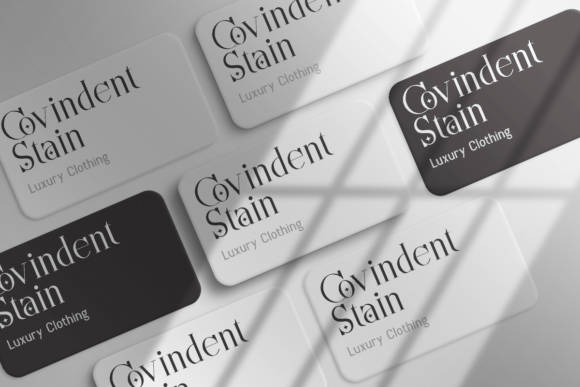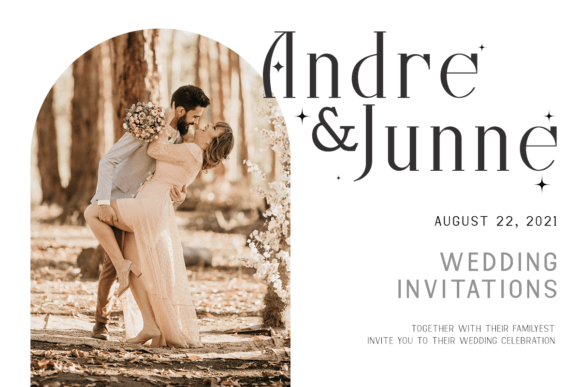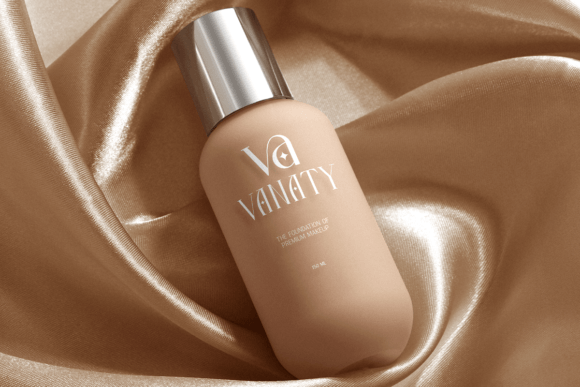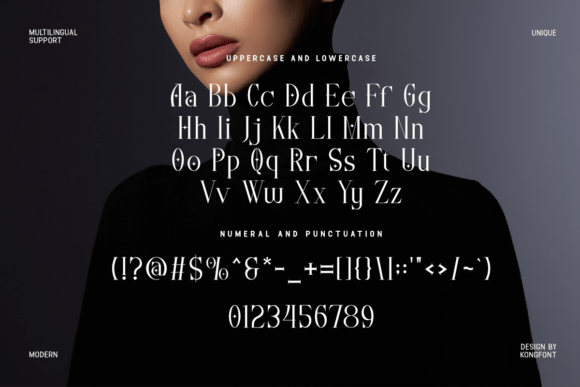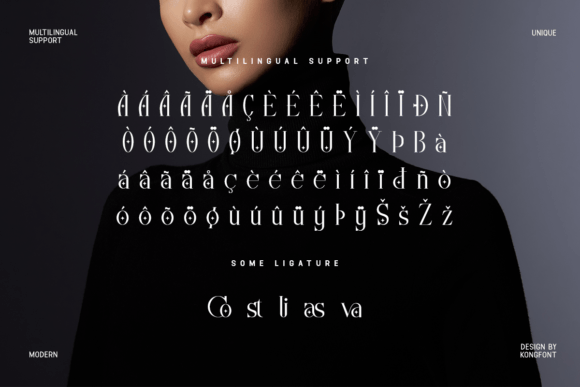
Introducing Costiva Serif Font: Elevate Your Designs with Timeless Elegance
Have you ever been in the middle of a design project, and suddenly, you just can’t seem to find the right font? I recall a particularly frustrating experience while working on a luxury branding project for a high-end jewelry client. The brief required a sophisticated, elegant feel that would appeal to their discerning audience. After hours of scouring through font libraries, I stumbled upon Costiva Serif Font. It was love at first sight! ✨ With its refined serifs and well-balanced letterforms, Costiva instantly elevated my design, adding a touch of class and distinction that perfectly captured the essence of the brand.
A Personal Review: What I Love About Costiva Serif Font
Costiva Serif Font has quickly become one of my go-to typefaces for projects that demand a level of sophistication and elegance. Here are a few things I absolutely love about it:
- ✅ Timeless Beauty: Costiva’s classic design ensures that your projects won’t feel dated anytime soon.
- ✅ Versatility: Whether it’s branding, editorial design, wedding invitations, or luxury packaging, Costiva fits right in.
- ✅ PUA Encoding: This font is PUA encoded, making it easy to access all the cute glyphs and swashes, which can add an extra layer of creativity to your designs.
- ✅ Professionalism: The font exudes a sense of professionalism and grace, making it perfect for projects where you want to make a strong, positive impression.
No font is perfect, and while Costiva Serif Font is incredibly versatile, there are a few minor quirks to be aware of:
- ⚠️ Learning Curve: If you’re new to using OpenType features or glyphs, there might be a slight learning curve to accessing all the font has to offer.
- 🤔 Pairing: While Costiva is stunning on its own, finding the perfect pairing font can take some experimentation. You might need to try out a few combinations to find the one that works best for your project.
The Designer Inspiration Behind Costiva
While the origins of Costiva Serif Font might not be well-documented, it’s clear that its design draws inspiration from traditional serif typefaces with a modern twist. Designers often look to history for inspiration, combining classic elements with contemporary needs. Costiva likely stems from a desire to create a font that feels both nostalgic and current, perfect for projects that require a sense of heritage and sophistication.
| What makes Costiva Serif Font unique? | Costiva Serif Font stands out due to its refined serifs, well-balanced letterforms, and timeless elegance, making it perfect for sophisticated projects. |
Costiva Serif Font is more than just a typeface; it’s a design tool that brings a level of sophistication and elegance to any project. Its versatility, combined with its timeless beauty, makes it a valuable addition to any designer’s toolkit. Whether you’re working on luxury branding, editorial content, or simply looking for a font that exudes professionalism and grace, Costiva Serif Font is an excellent choice.